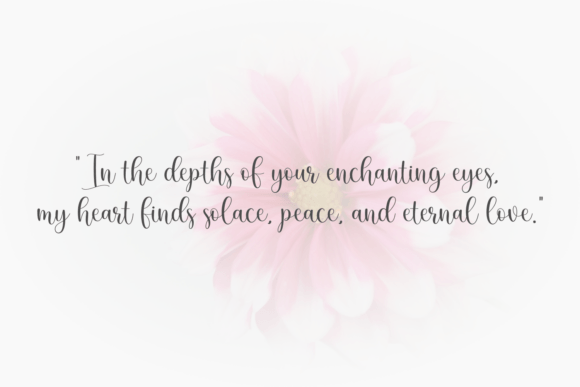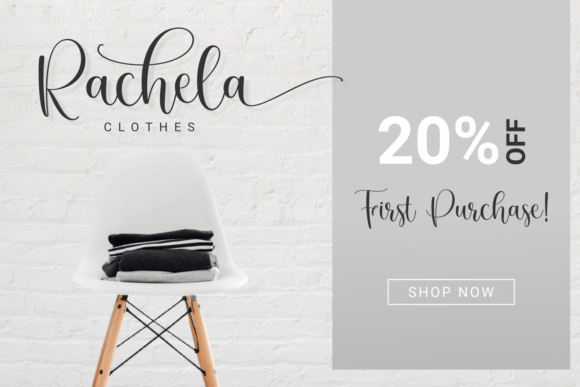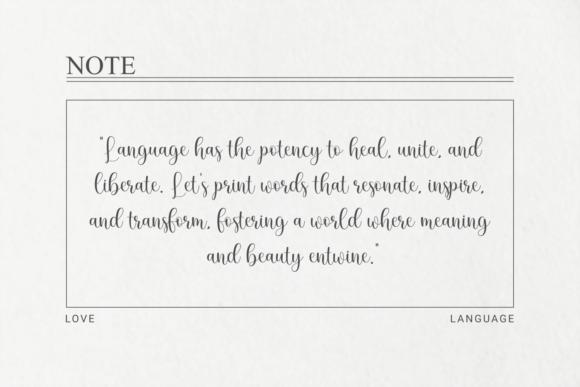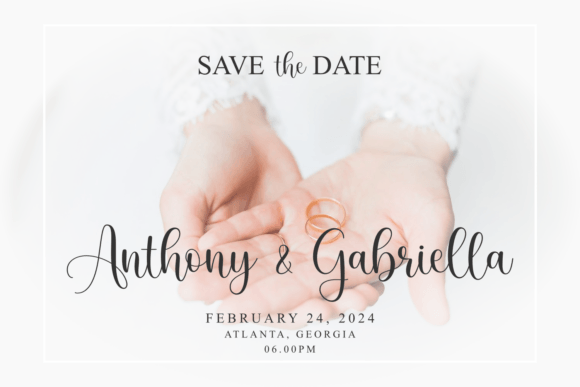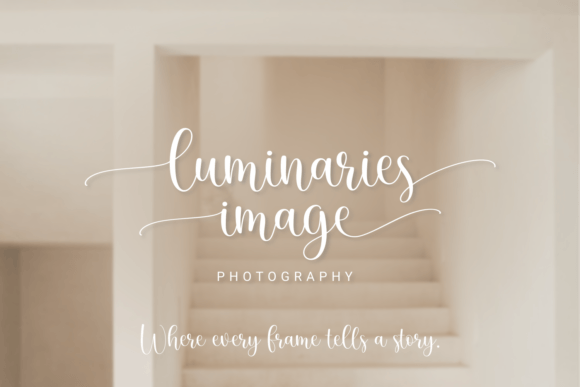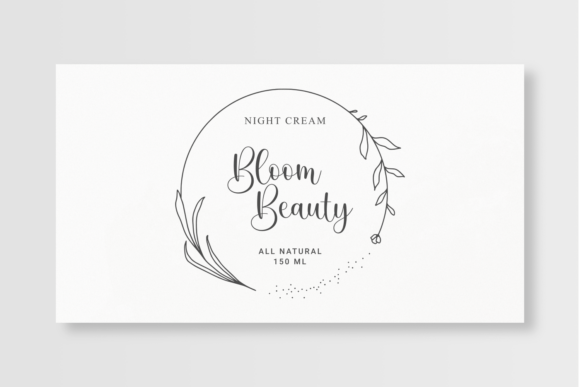
Introduction to Overline Font
Do you remember the thrill of discovering that perfect font for your creative project? The one that elevates your design from ordinary to extraordinary? For many designers, that moment of triumph comes when they find a font that perfectly captures the essence of their vision. And that’s exactly what the Overline Font does – it adds a touch of sophistication and elegance to any design, making it a valuable resource for designers seeking to create high-quality, visually stunning work.
With its clean lines and refined aesthetic, the Overline Font is perfect for luxury designs, titles, and quotes. Its PUA encoding ensures that you can access all glyphs and swashes with ease, making it a free download that’s both accessible and versatile. Whether you’re working on a design project or simply looking for a reliable design resource, the Overline Font is an excellent choice – especially when paired with a transparent background to really make it pop.
Key Features of Overline Font
- High-quality, vector-based design ideal for creative projects, including logos, icons, and graphics.
- Unique, modern design aesthetic, perfect for adding a touch of sophistication to creative projects.
Honest Review: Overline Font
I recently had the chance to work with the Overline Font and I must say it’s been a game-changer for my creative projects. The high quality design and transparent background make it perfect for any design resource.
- ✨ Unique style that sets my designs apart from the rest
- ✨ Easy to use and customize for my specific needs
- ⚠️ Limited font variations, which can make it feel repetitive after a while
- ⚠️ Not as versatile as some other fonts, which can limit its use in certain projects
Overall, I’m really impressed with the Overline Font. It’s a solid addition to any design resource collection and I’m excited to see how it continues to evolve. With a little creativity, it can be a powerful tool for designers looking to add some flair to their work.
Overline Font: A Design Resource for Creative Projects
What is Overline Font?
Overline Font is a high-quality design resource that offers a unique and creative way to add emphasis to your text. It’s a versatile font that can be used in various creative projects, from graphics and logos to presentations and documents.
Tips for Getting the Most Out of Overline Font
To get the most out of Overline Font, use it sparingly to add emphasis to your text. You can also experiment with different font sizes and colors to create a visually appealing design.
Overline Font is commonly used in:
Graphics and logos
Presentations and documents
Social media graphics
Alternatives to Overline Font
1. Lobster Font
Lobster Font is a popular, high-quality font used in various creative projects. It is ideal for headings and titles that require a touch of elegance and sophistication. When to use: For high-end design projects, magazines, and websites that require a premium look.
Comparison to Overline Font: Lobster Font is more cursive and has a more elegant feel compared to Overline Font, which is more straightforward and modern.
Great Vibes Font is a free download and a great design resource for designers. It has a unique, handwritten feel that is perfect for creative projects that require a personal touch. When to use: For blog posts, social media graphics, and websites that require a casual, friendly tone.
Comparison to Overline Font: Great Vibes Font is more playful and casual compared to Overline Font, which is more modern and sleek.